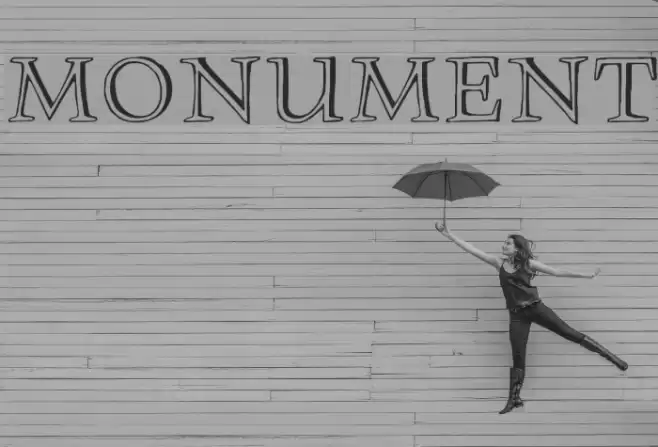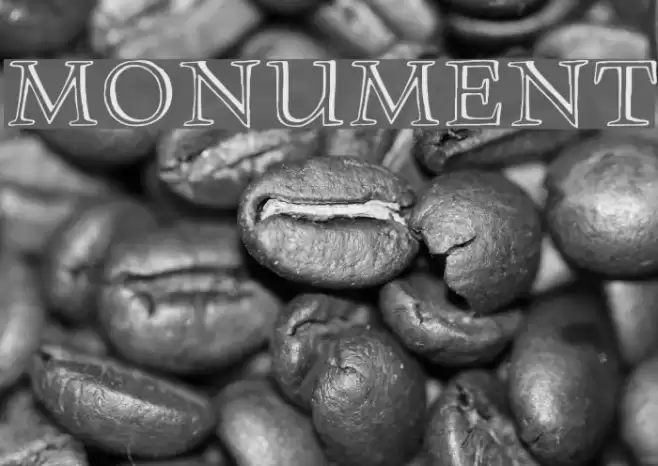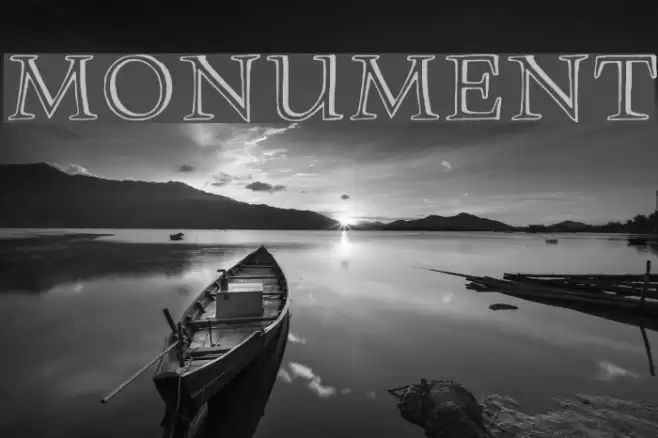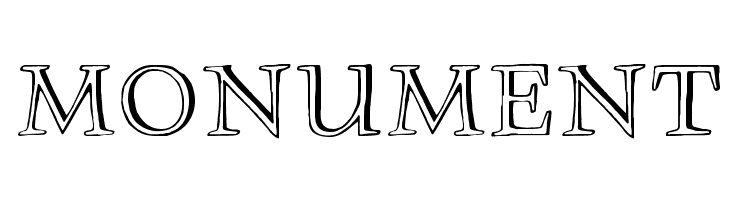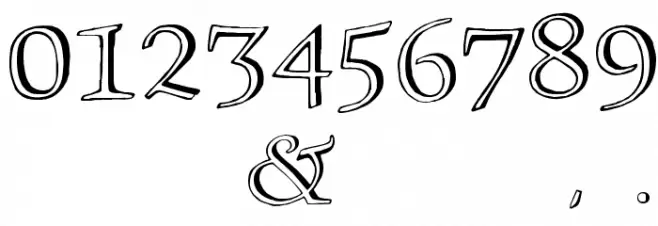
Monument Font
Monument Description
This font features a classic serif style with a strong, elegant presence. The characters are well-defined with sharp serifs and a slight contrast in stroke thickness, giving it a timeless and sophisticated look. The uppercase letters are bold and commanding, while the numerals and special characters maintain the same level of refinement. The overall design is reminiscent of traditional Roman inscriptions, making it suitable for projects that require a touch of historical elegance.
A classic serif font with elegant, sharp serifs and a timeless style from Retro fonts.
- Proposed Projects: Ideal for use in formal invitations, book covers, historical documents, and branding that requires a classic touch.
- Overall Style: Classic
- Use Case: Headlines, Logos, Formal documents